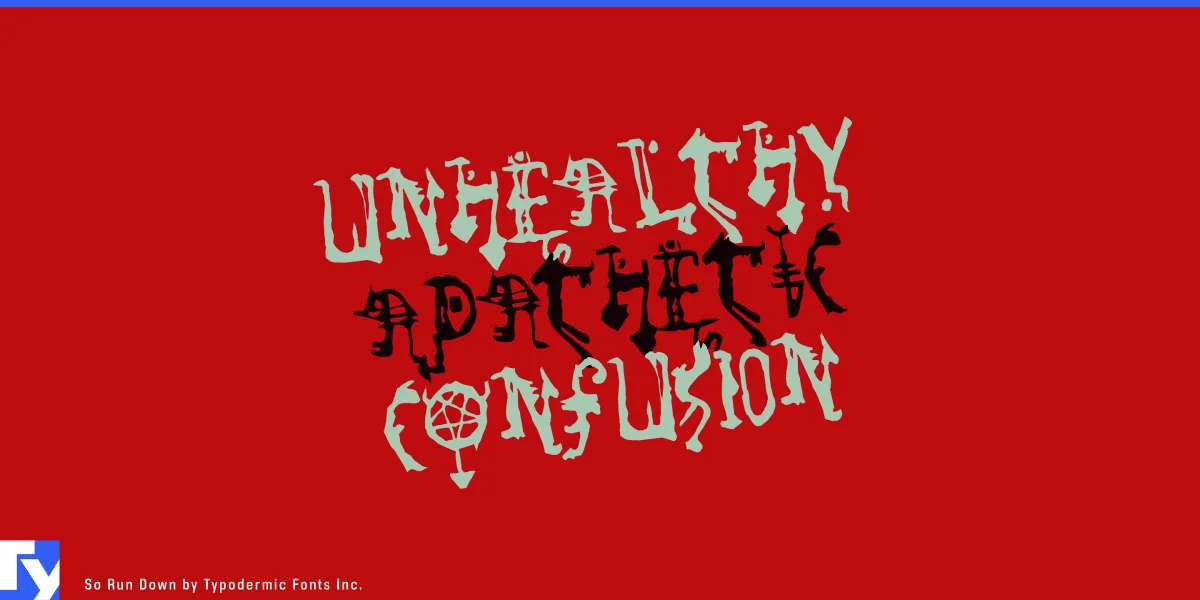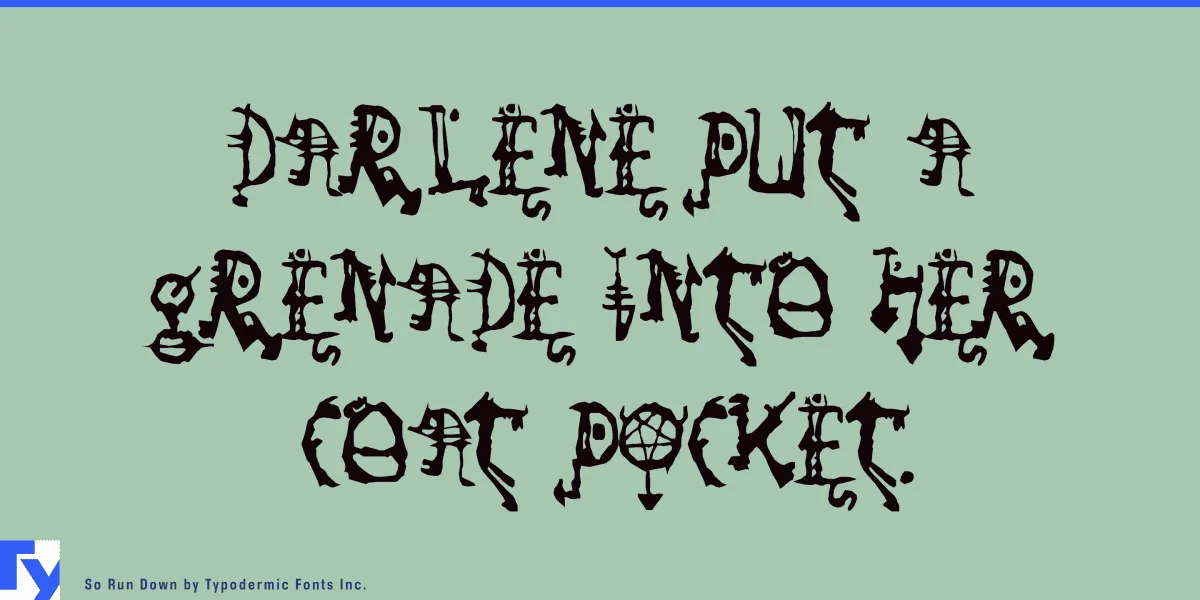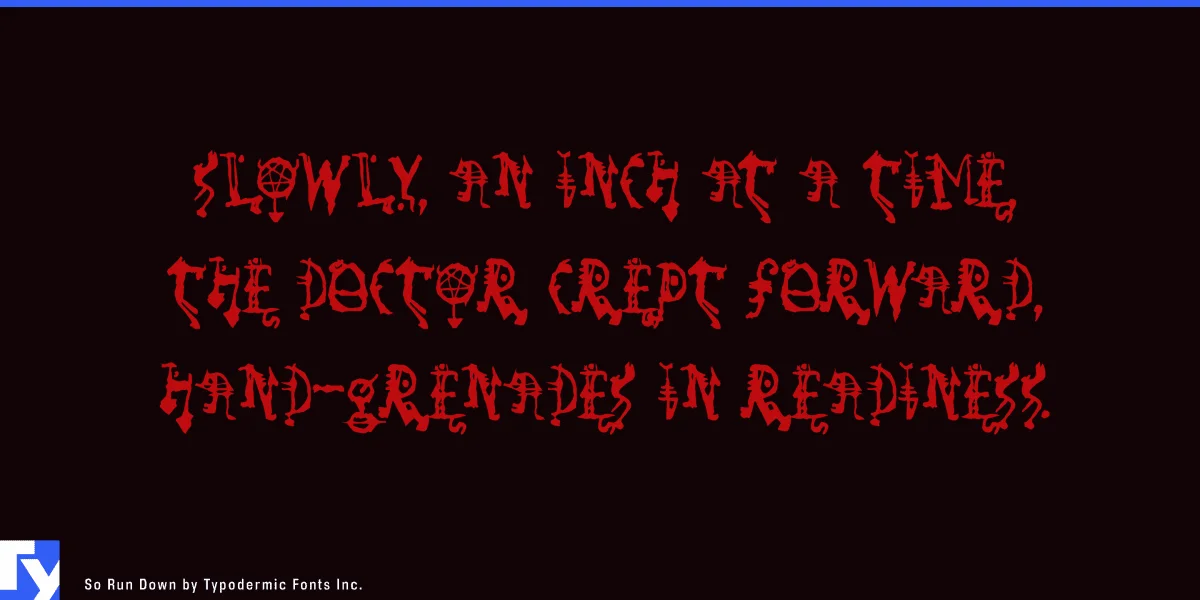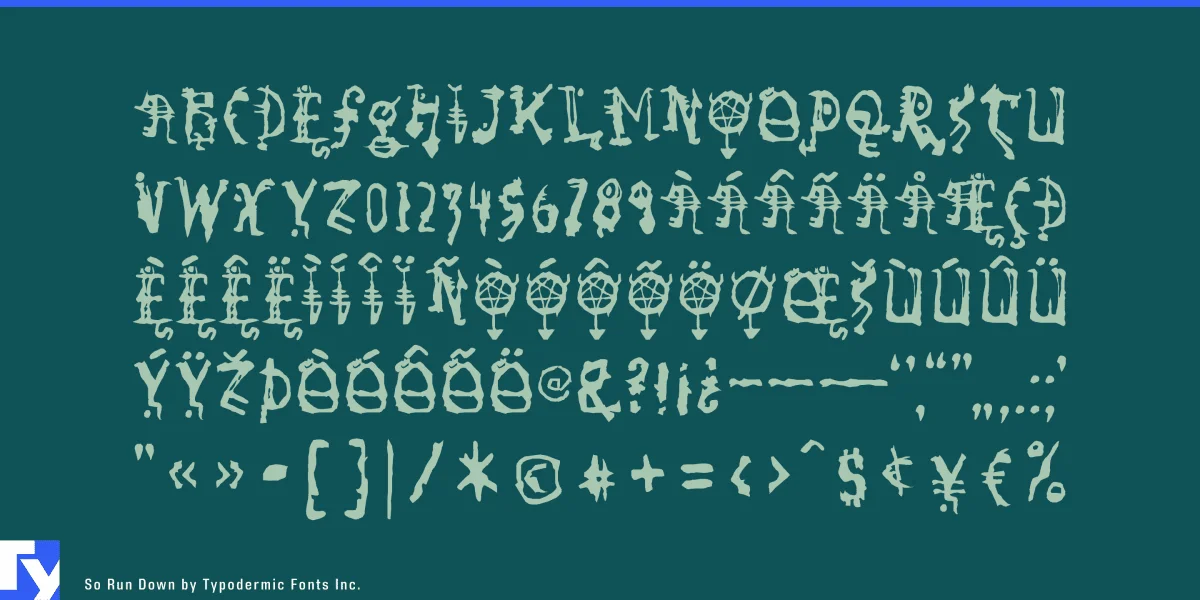
So Run Down is a nefarious demonic cacograph. Allow the horrifyingly nasty letterforms of this typeface to infiltrate your message with their unsettling style. Some Latin-based European writing systems are supported, including the following languages. Afaan Oromo, Afar, Afrikaans, Albanian, Alsatian, Aymara, Basque, Bemba, Bikol, Breton, Cape Verdean, Creole, Catalan, Cebuano, Chamorro, Chavacano, Danish, Dawan, Dholuo, Dutch, English, Estonian, Faroese, Fijian, Filipino, Finnish, French, Frisian, Friulian, Galician, Genoese, German, Guadeloupean Creole, Haitian Creole, Hiligaynon, Icelandic, Ilocano, Indonesian, Irish, Italian, Jamaican, Kaqchikel, Kikongo, Kinyarwanda, Kirundi, Lombard, Low Saxon, Luxembourgish, Makhuwa, Malay, Ndebele, Neapolitan, Norwegian, Novial, Occitan, Papiamento, Piedmontese, Portuguese, Quechua, Rarotongan, Romansh, Sango, Saramaccan, Sardinian, Scottish Gaelic, Shona, Sicilian, Silesian, Slovak, Slovenian, Somali, Sotho, Spanish, Swahili, Swazi, Swedish, Tagalog, Tetum, Tshiluba, Tsonga, Tswana, Tumbuka, Uzbek (Latin), Venetian, Võro, Walloon, Waray-Waray, Wayuu, Xhosa, Yapese, Zapotec Zulu and Zuni.